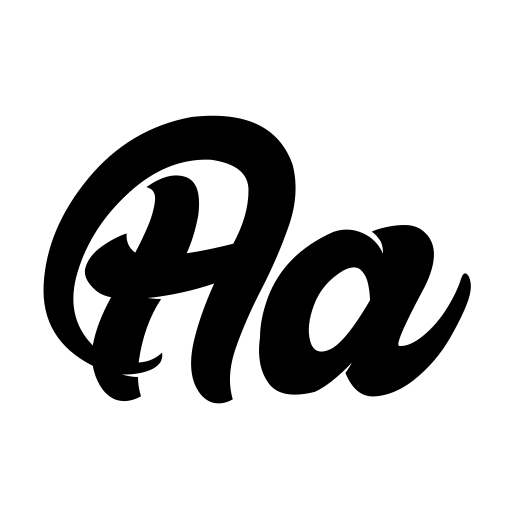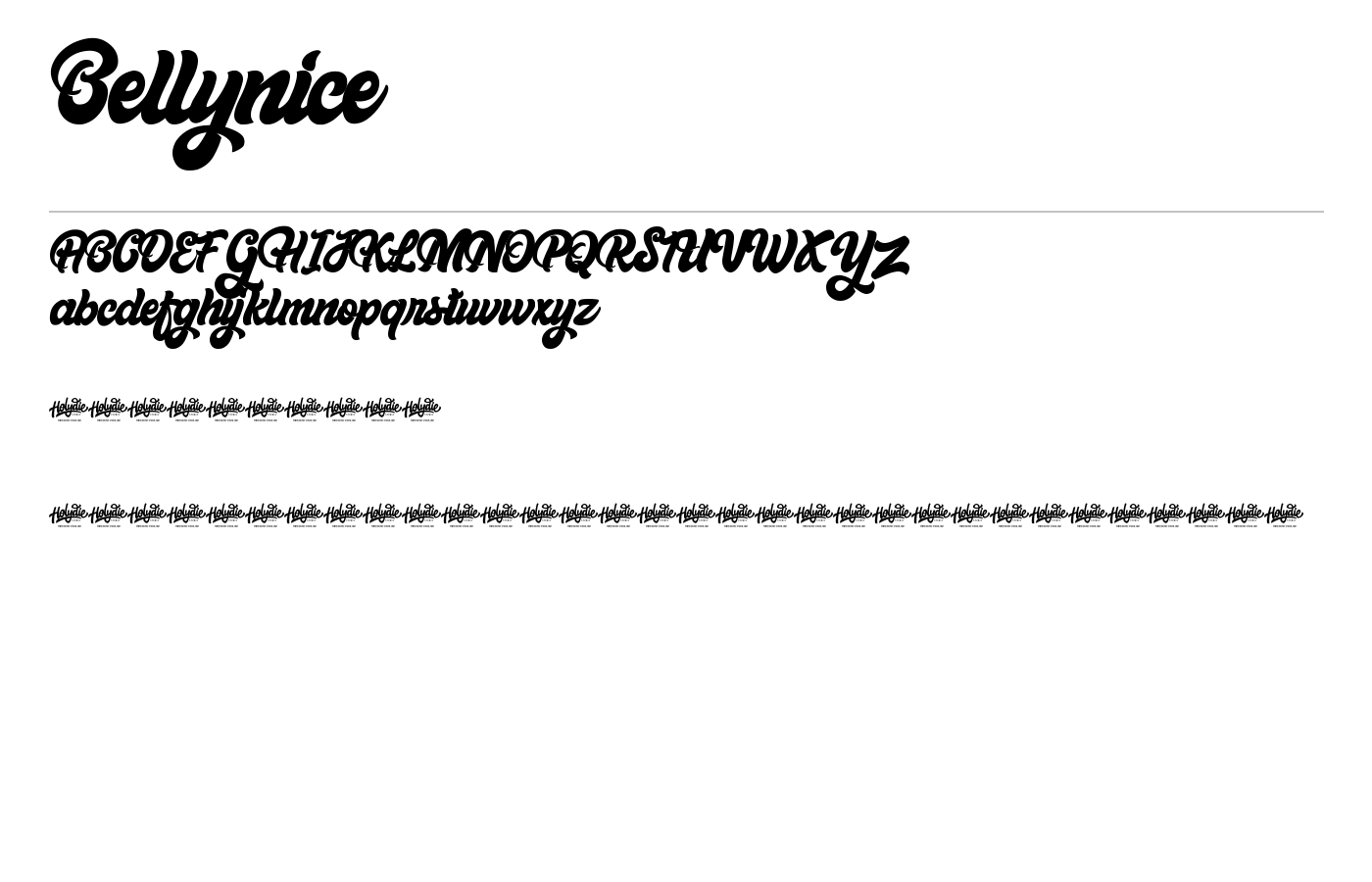
Bellynice is a bold, script-style font with a lively and playful character, featuring thick, rounded strokes and smooth, flowing connections between letters. Its strong weight and cursive design make it perfect for eye-catching headlines, logos, or branding that aims to convey a friendly and energetic vibe. This font works well in creative projects that want to combine a sense of fun with a confident, modern flair.
Bellynice Font
About Bellynice Font